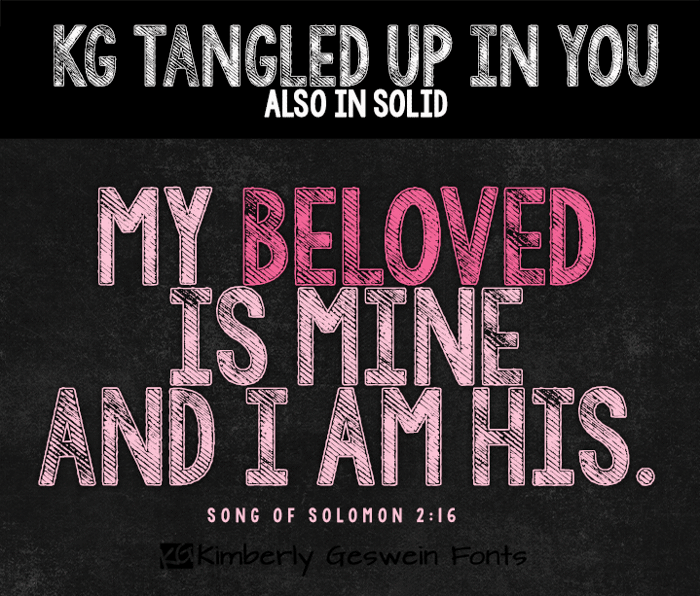
KG Tangled Up In You Font
An uppercase font, perfect for titles and headlines, in both a sketchy and a solid version. Free for personal use. Please pay for commercial use.